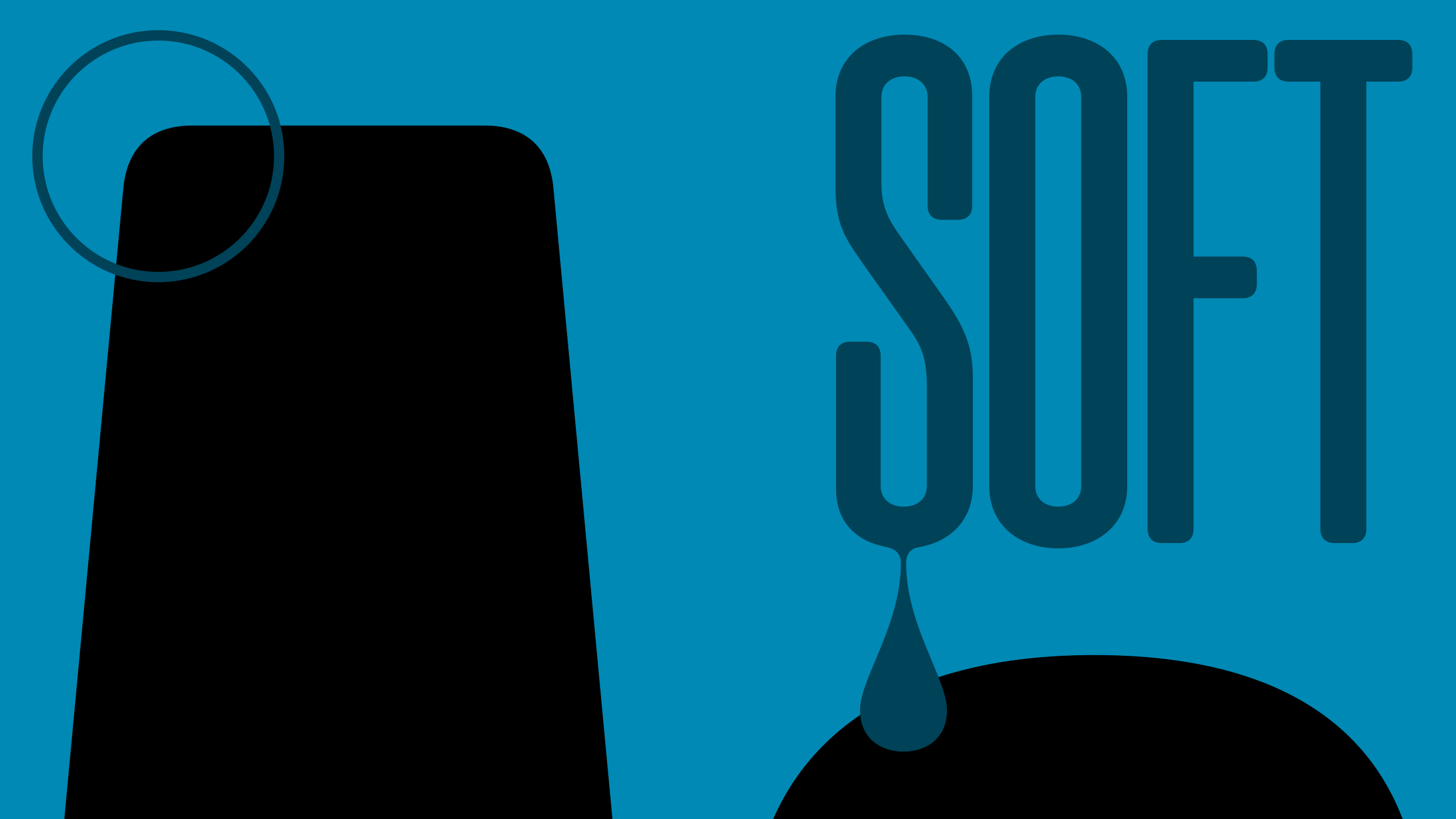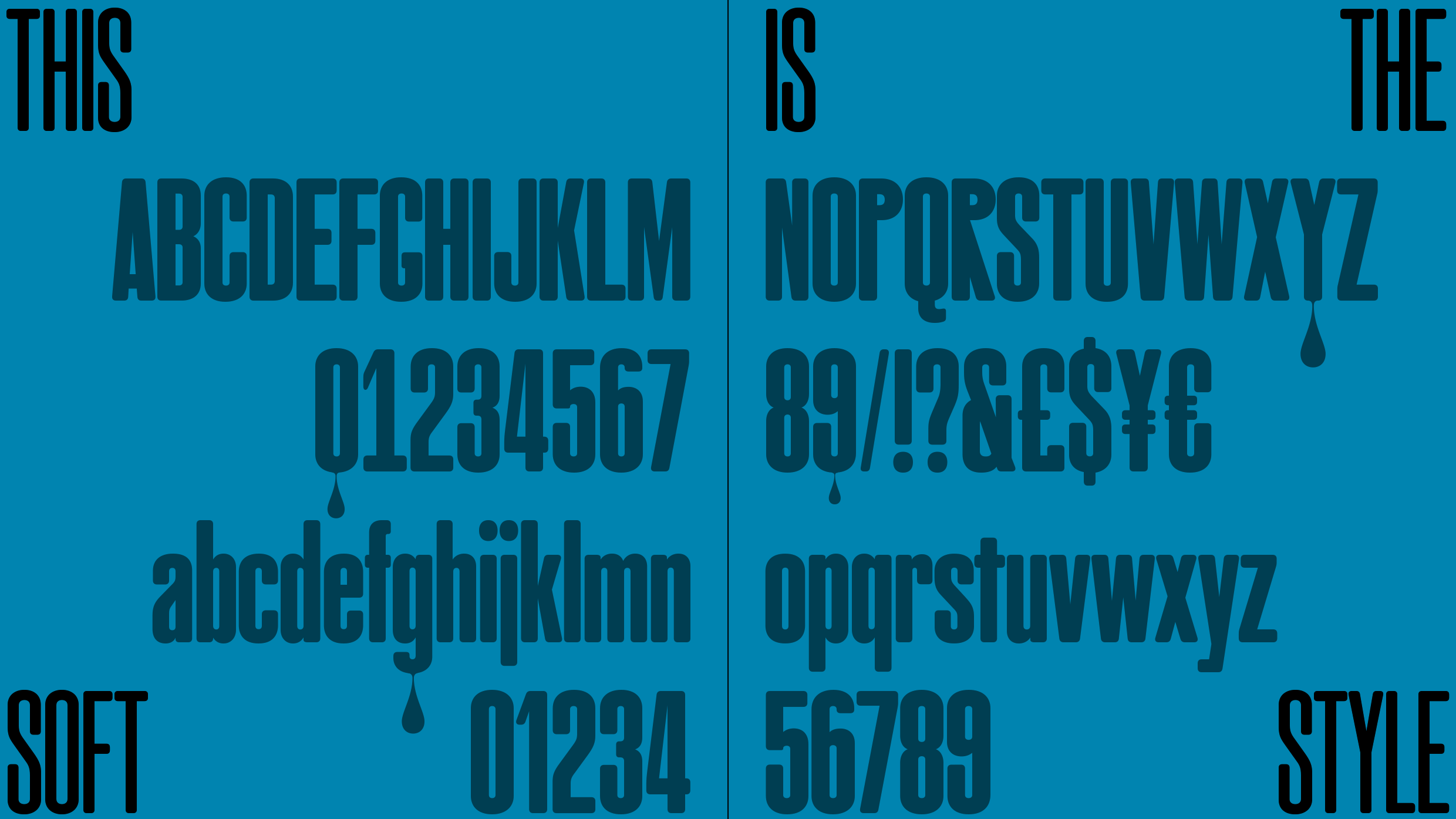
Originally created as a dynamic headline font (in collaboration with Matt Willey), LargePoint has now evolved into a suite of fonts designed in Sharp and Rounded styles. This high-octane typeface is bold, characterful, and specifically tailored for editorial designers.
| Font name: | LargePoint Soft |
| Font category: | Sans |
| Styles: | LargePointSoft Thin LargePointSoft Light LargePointSoft Regular LargePointSoft Medium LargePointSoft Bold LargePointSoft ExtraBold LargePointSoft Black LargePointSoft Heavy |
| Manufacturer: | A2-TYPE |
| Designer: | Henrik Kubel |